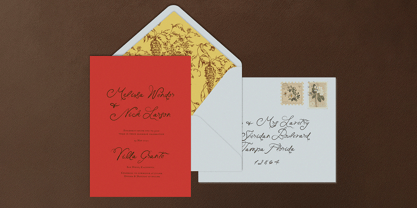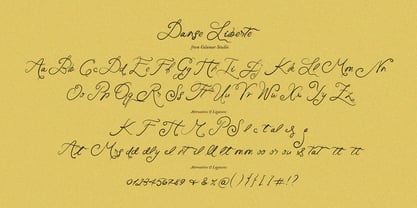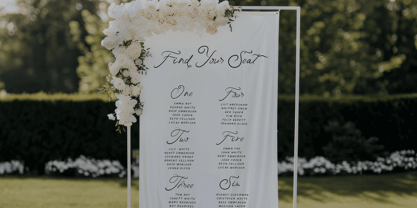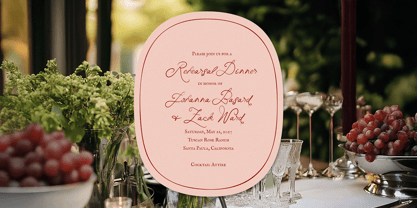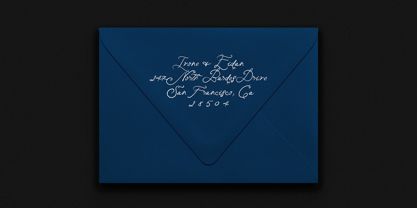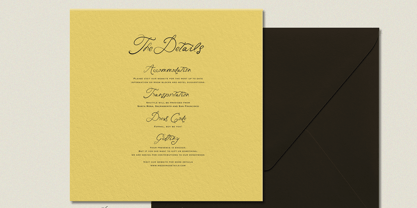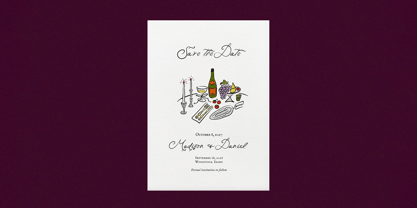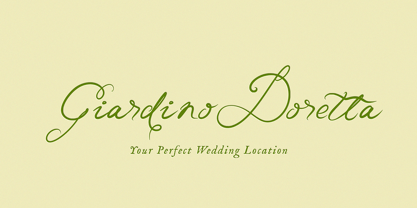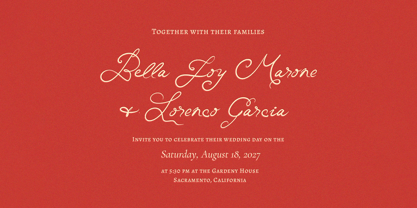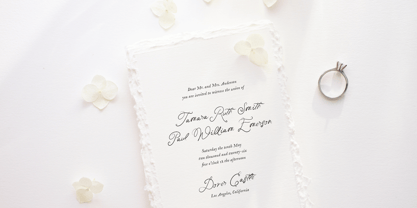
CS Danse Liberte
by Calamar
The CS Danse Liberte Font Family was designed by Oksana Petrenko and published by Calamar. CS Danse Liberte contains 1 styles. More about this family
Danse Liberte is a refined handwritten script inspired by graceful movement and timeless romance. With its flowing curves, elongated swashes, and delicate contrast, this font captures the elegance of modern fine art weddings. Each letter was carefully crafted to create a natural rhythm and sophisticated feel, making it perfect for statement titles and elevated wedding stationery. Danse Liberte is especially beautiful in title case and lowercase compositions, where its expressive capitals and soft connections truly shine. Perfect for wedding invitations, save the dates, menus & place cards, bridal branding, luxury packaging, social media graphics, logos and signatures. Danse Liberte pairs beautifully with minimalist serif or clean sans-serif fonts, creating a balanced and refined design aesthetic. If you are looking for a script that feels romantic yet confident, expressive yet sophisticated — Danse Liberte will add that effortless charm to your projects. ~ Oksana, xx
Calamar Studio, founded by Oksana Petrenko, specializes in modern calligraphy and handwritten fonts, with a focus on elegant typefaces for weddings, events, and creative projects. “Calamar” is an old Ukrainian word for inkwell, reflecting our passion for lettering and artisanal design. Inspired by classic calligraphy and contemporary handwriting, our fonts combine beauty, readability, and timeless elegance. Our mission is to craft high-quality, versatile fonts that bring charm and personality to every project.